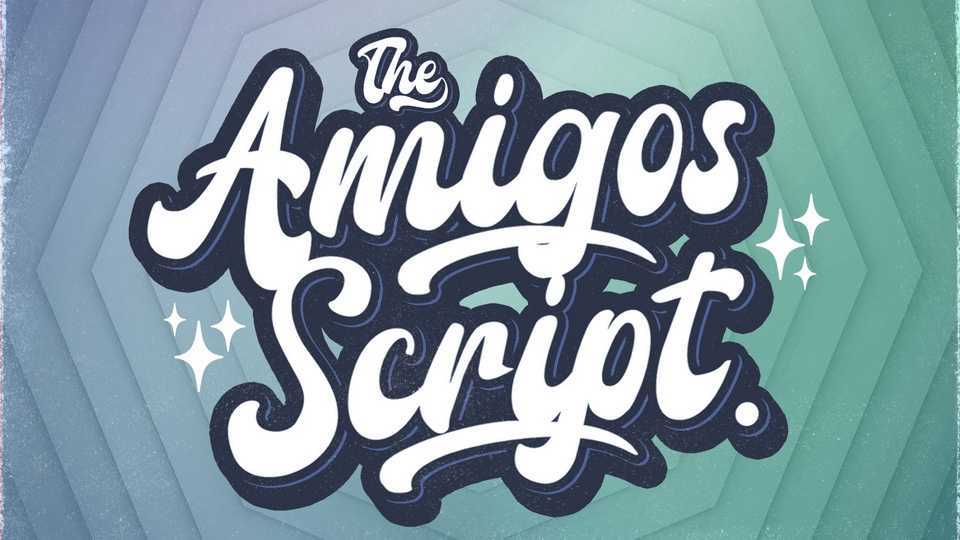
Download Amigos Script font, a strong and bold hand lettered typeface. Amigos Script is curved, rounded, and has an unique vintage style, that is perfect for branding.